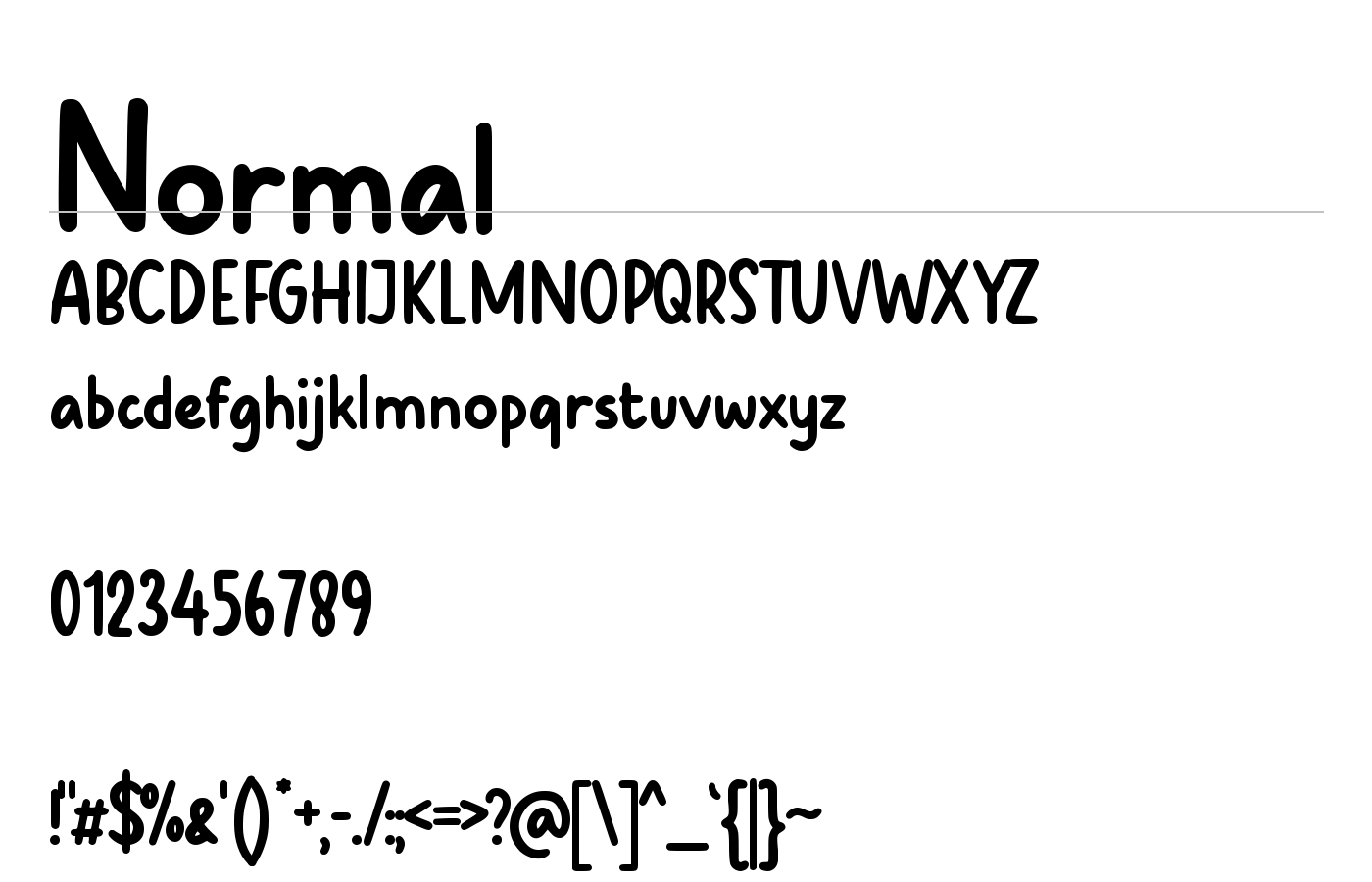
Juicitime is a playful, rounded sans serif font that feels friendly and approachable with its casual, hand-drawn style. Its moderate weight and slightly condensed letterforms make it great for informal designs, adding a fun, youthful charm to logos, posters, and packaging. This font works best where a lighthearted and cheerful mood is needed, bringing warmth and personality to creative projects.
Juicitime Font
About Juicitime Font